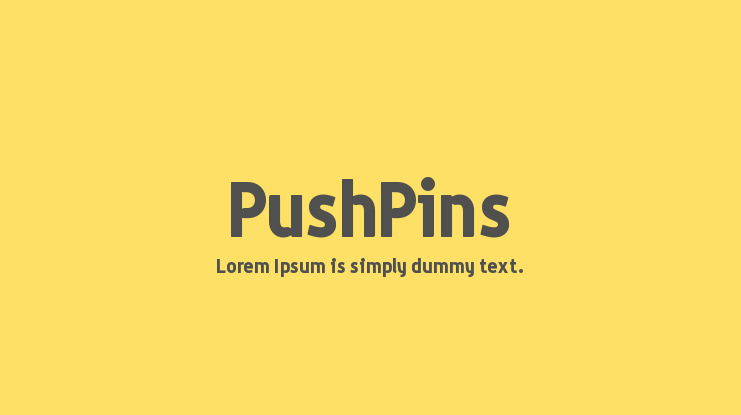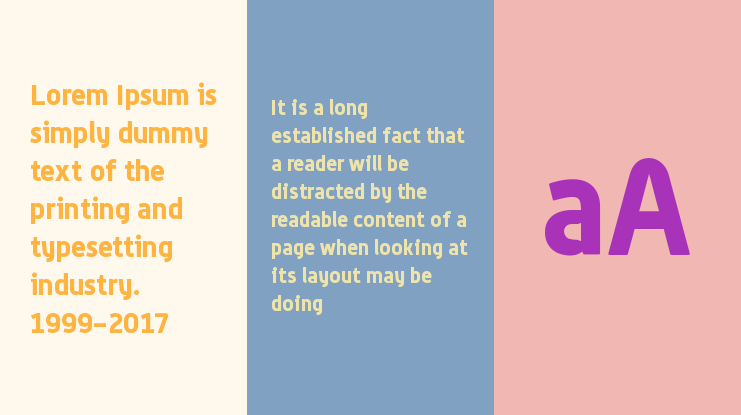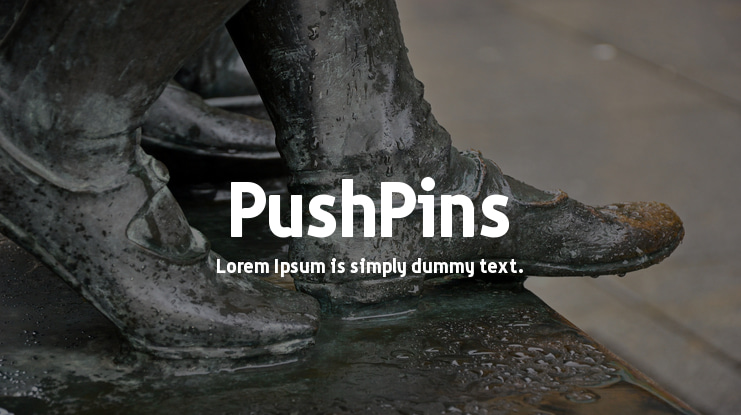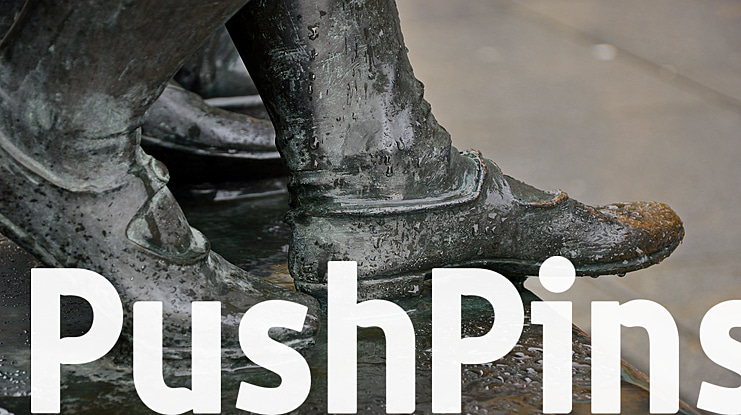
PushPins Font Family
This Push Pins type is a unique face with a contemporary, modern edge to it. The typeface came with five different unique style Regular, Italic, Bold, Expanded Light, Shadow and other features. Here a few excellent examples for you to try out and enjoy the fonts. The typeface designed by Tom Tor and exclusively available only at www.tomtor.com